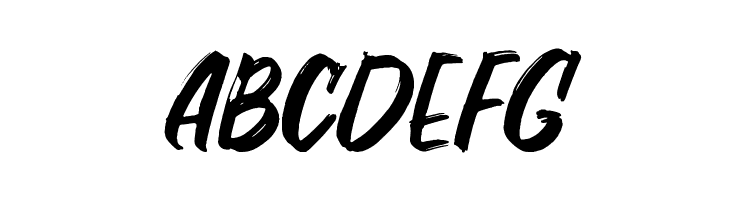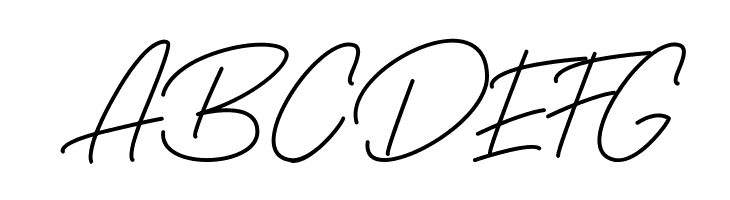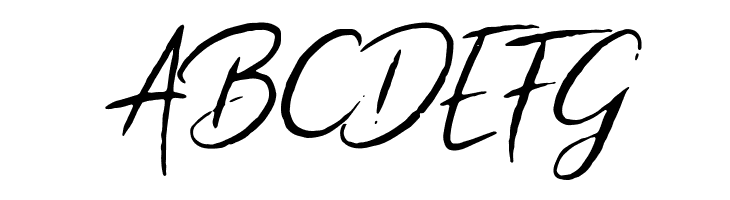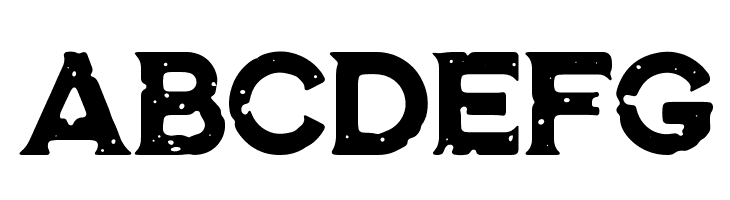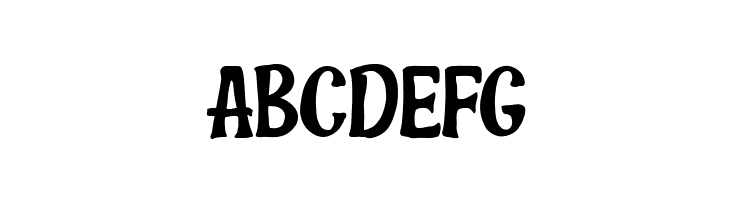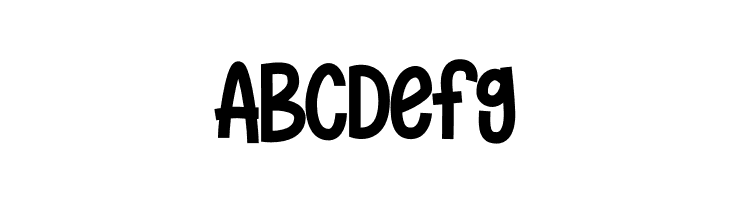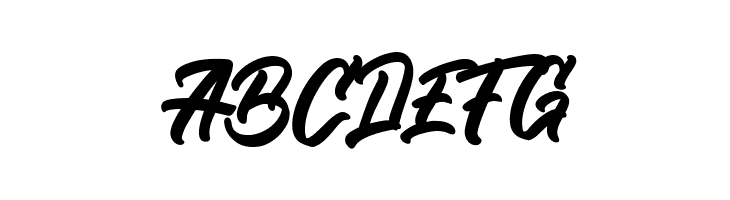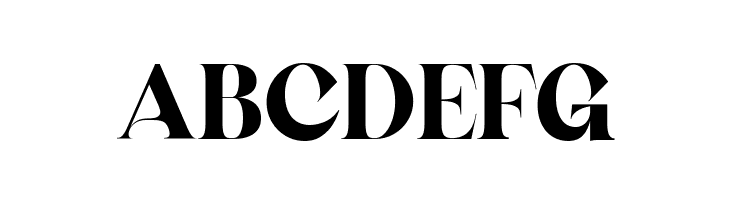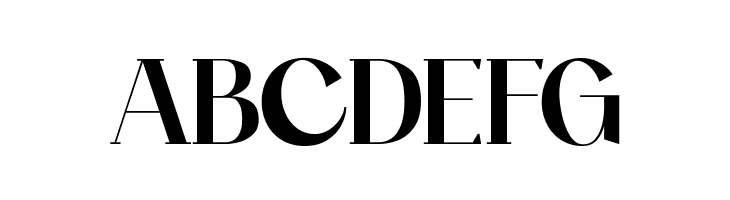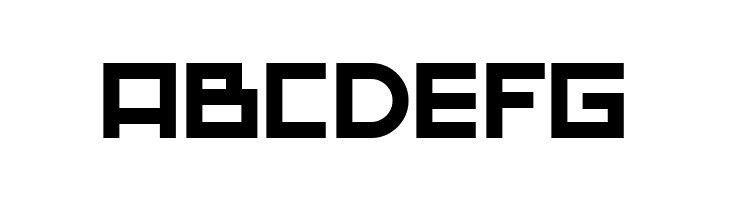
A modern, elegant script font with flowing, cursive strokes and dynamic contrast.
A bold, brush-style font with a hand-drawn, energetic appearance.
An elegant script font with flowing lines and intricate curves, perfect for sophisticated designs.
A modern serif font with elegant curves and balanced proportions.
A modern serif font with elegant, slender strokes and slight contrast.
A graceful and elegant script font with flowing cursive style.
A cursive, handwritten-style font with elegant, flowing characters.
A dynamic and fluid script font with elegant, handwritten characteristics.
A bold, outlined font with diagonal hatching for a playful yet structured look.
A playful, curly font with whimsical loops and swirls.
A playful, hand-drawn font with tall, narrow letters and a whimsical style.
A playful, hand-drawn font with a scratchy texture and whimsical style.
A playful handwritten font with dynamic strokes and a lively style.
A playful, bold, and hand-drawn font with a whimsical style.
A playful, bold, hand-drawn font with a whimsical and energetic style.
A bold, dynamic script font with flowing strokes and a strong visual impact.
A high-contrast, elegant font with dramatic serifs and curves.
A high-contrast serif font with elegant, refined strokes and pronounced serifs.
A dynamic, cursive script font with fluid, interconnected strokes.
A bold, geometric font with strong, angular lines and uniform strokes.
A bold, flowing script font with elegant, connected letterforms.
A bold, blocky font with a playful, retro-modern style.
A playful, rounded font with a modern-retro vibe, featuring tubular letterforms.
An elegant italic serif font with a classic and sophisticated style.